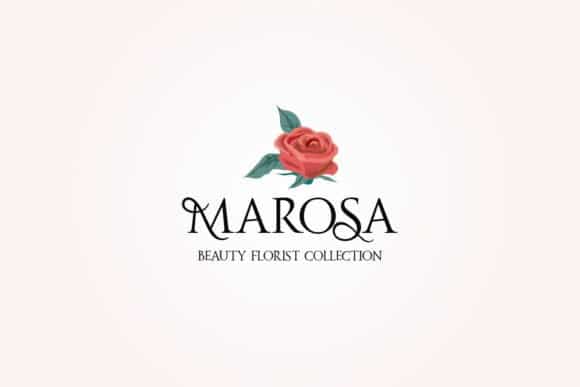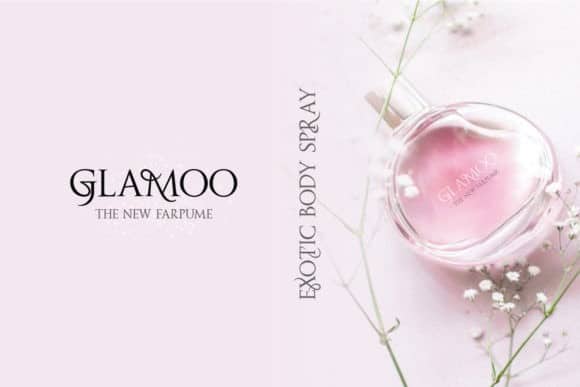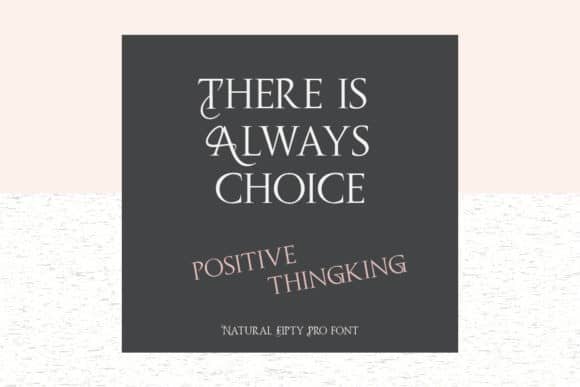
Introducing Fipty Pro Serif Font – A classic all caps font based on vintage advertisements with some modern adjustments. Bold, tall, and easily readable, Fipty is sure to stand out in any project. Fipty Pro designed and shared by emanesdsign. It’s a gorgeous serif typeface. This stunning font is a stylish homage to classic calligraphy. It features a varying baseline, smooth lines, gorgeous glyphs and stunning alternates. It will add a romantic touch to your projects!